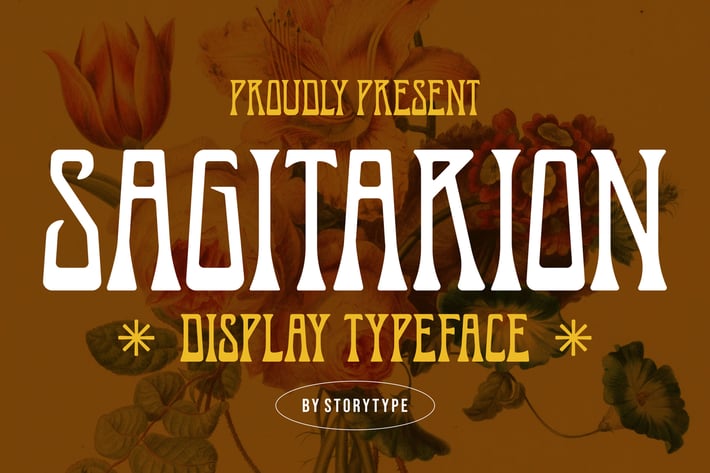
Sagitarion Display Font
Sagitarion Display is a bold vintage-style typeface with strong, carved letterforms inspired by retro posters and classic sign painting. Its unique shapes and striking presence make it perfect for standout titles, nostalgic branding, and designs that need a powerful old-school personality.
Vintage display style with bold, sculpted letterforms
Distinctive retro character suitable for eye-catching headlines
Strong visual impact for themed posters and branding
Works beautifully in both digital and printed applications
Retro posters & event titles
Vintage branding & packaging
Logos with classic personality
Editorial layouts & themed graphics
Social media visuals with nostalgic vibes
Merchandise, signage, and promotional materials
Bold retro energy for designs that need instant character.